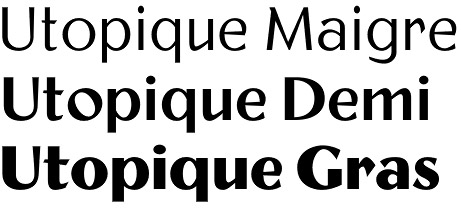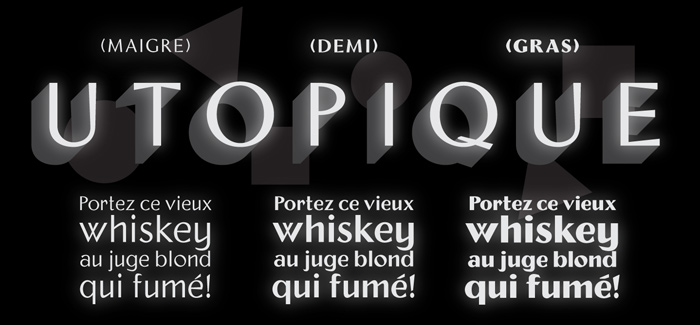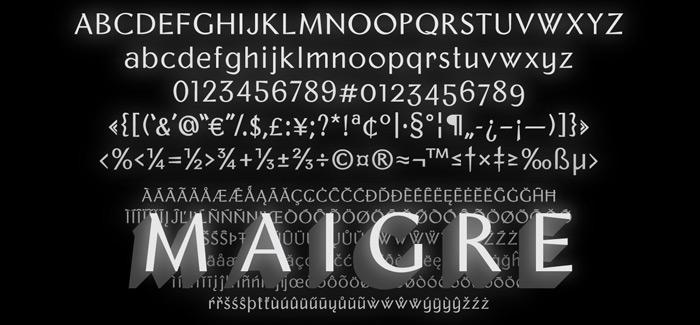
Utopique font
Utopique font by the American type designer Benjamin Woodlock (Subtext Office) is a renovation of the Île-de-France sans-serif typeface designed by Enric Crous-Vidal in the early 1960s for the Fonderie Typographique Française. It’s obligatory to mention Crous-Vidal’s contribution to the modern Western typography. Being an apologist for the humanist “Latin Arabesque” as an alternative to the prevailing Geometric graphics and typefaces at that time Enric Crous-Vidal encourages the typographic diversity and deserves a place in the history of Western lettering.
Exaggerated calligraphic strokes and lively energy are evidence for the Utopique font’s unique influence. Utopique font have been developed further with a careful balance and an expanded Latin character set makes it suitable for both display and text settings in the digital age. While some aspects of the design have been updated for contemporary usage, OpenType provides access to original alternate designs. Utopique font introduces contemporary analphabetic characters and old-style figures, as well as a set of experimental logograms meant to address evolving modes of communication.
Utopique font family comes in three weights – Maigre, Demi, and Gras (Regular, Bold, and Black, respectively).